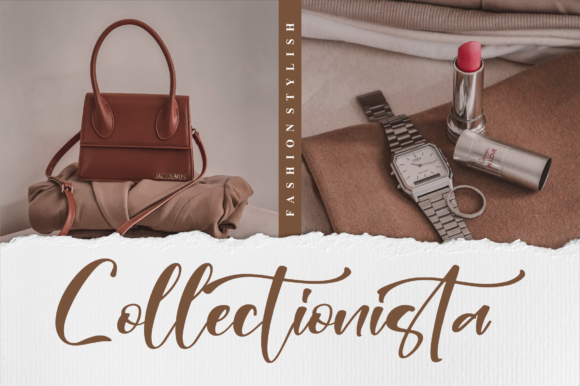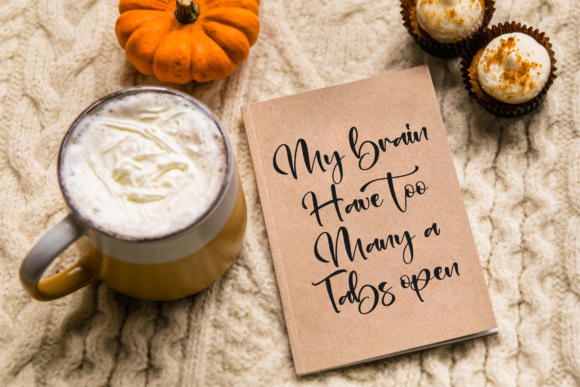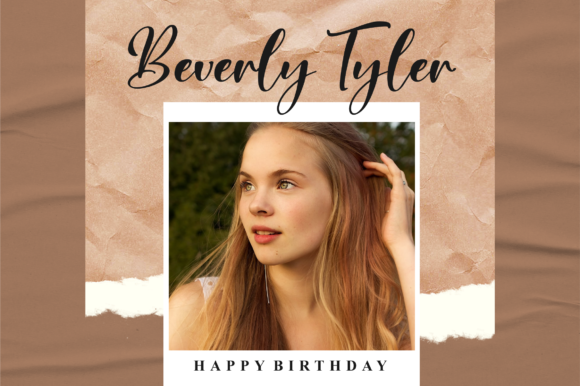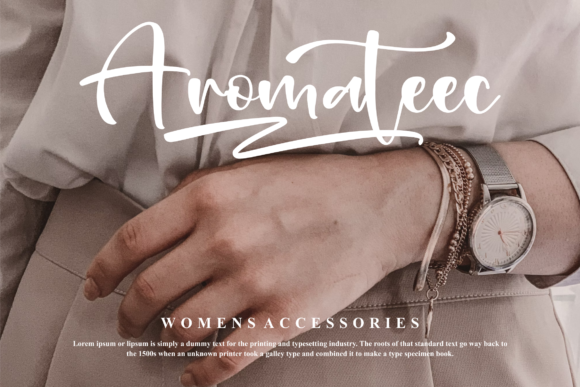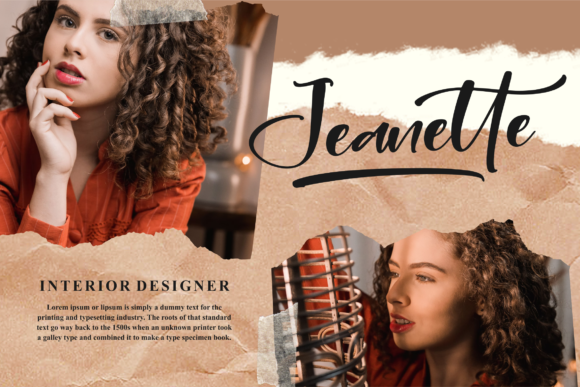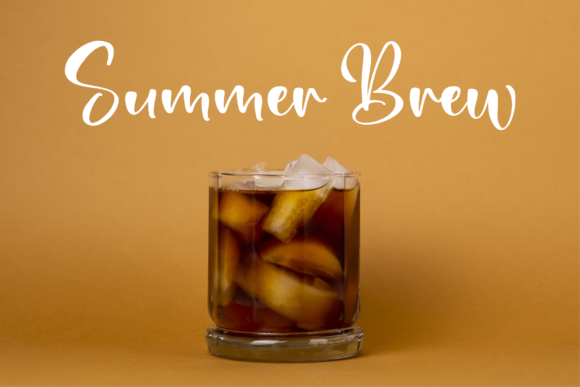
Introduction to Rainbow Fantasy Font
Remember that magical moment when you finally find the perfect font to bring your creative project to life? For designers, it’s like hitting the jackpot – the perfect font can make all the difference between a good design and a great one. And that’s exactly what the Rainbow Fantasy Font does. With its sophisticated handwritten style, this font is perfect for delivering any message with confidence, authenticity, and charm.
Whether you’re working on a personal project or a client’s high-quality design, the Rainbow Fantasy Font is an invaluable design resource that will take your work to the next level. Its transparent background and beautiful swashes make it a joy to use, and the fact that it’s PUA encoded means you can access all glyphs and swashes with ease, making it a free download that’s a game-changer for any designer.
- Unique, vibrant design with a transparent background, perfect for creative projects that require a touch of magic.
- High-quality font with a wide range of characters, including uppercase and lowercase letters, numbers, and special symbols.
- Design resource ideal for creating eye-catching titles, headings, and other text elements in various creative projects.
- Customizable and editable, making it a versatile design tool for professionals and hobbyists alike.
- Perfect for use in graphic design, digital art, web design, and other creative fields where a touch of fantasy is desired.
Honest Review: Rainbow Fantasy Font
I recently came across the Rainbow Fantasy Font, and I must say it’s a unique addition to any creative project. The font’s high quality is immediately apparent, with crisp lines and vibrant colors that pop against a transparent background.
What works well: ✨ The Rainbow Fantasy Font is perfect for designers looking to add a touch of whimsy to their work. The font’s playful style makes it ideal for children’s books, party invitations, or any other project that requires a fun and lighthearted tone.
- High-quality design with transparent background
- Perfect for creative projects that require a playful tone
However, there are a few limitations to keep in mind: ⚠️ The font is only available in a limited range of sizes, which may not be suitable for all projects. Additionally, the font’s bold style can be overwhelming in certain contexts.
Overall, I think the Rainbow Fantasy Font is a great design resource for designers who want to add a touch of magic to their work. While it may have some limitations, the font’s unique style and high quality make it a valuable addition to any design library.
The Rainbow Fantasy Font is perfect for designing posters, social media graphics, and presentations. Its vibrant colors and playful design make it an ideal choice for creative projects. Use it to add a touch of whimsy and magic to your designs.